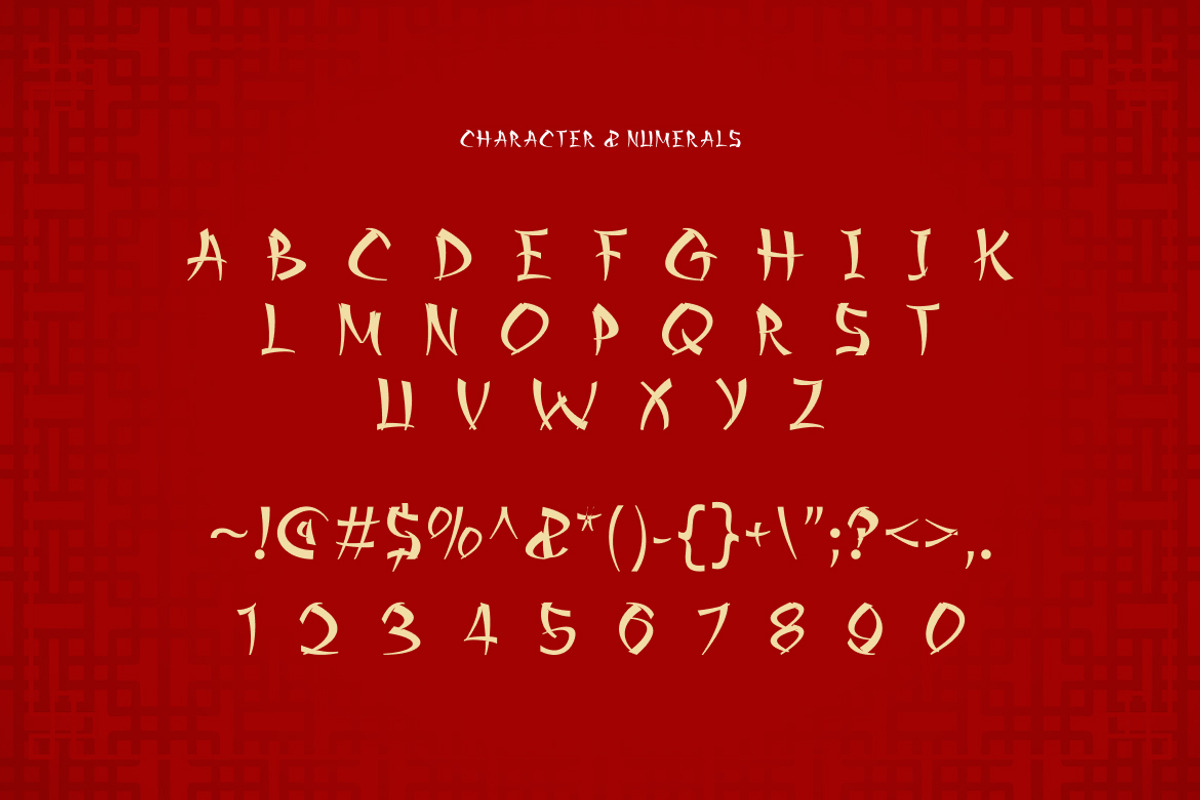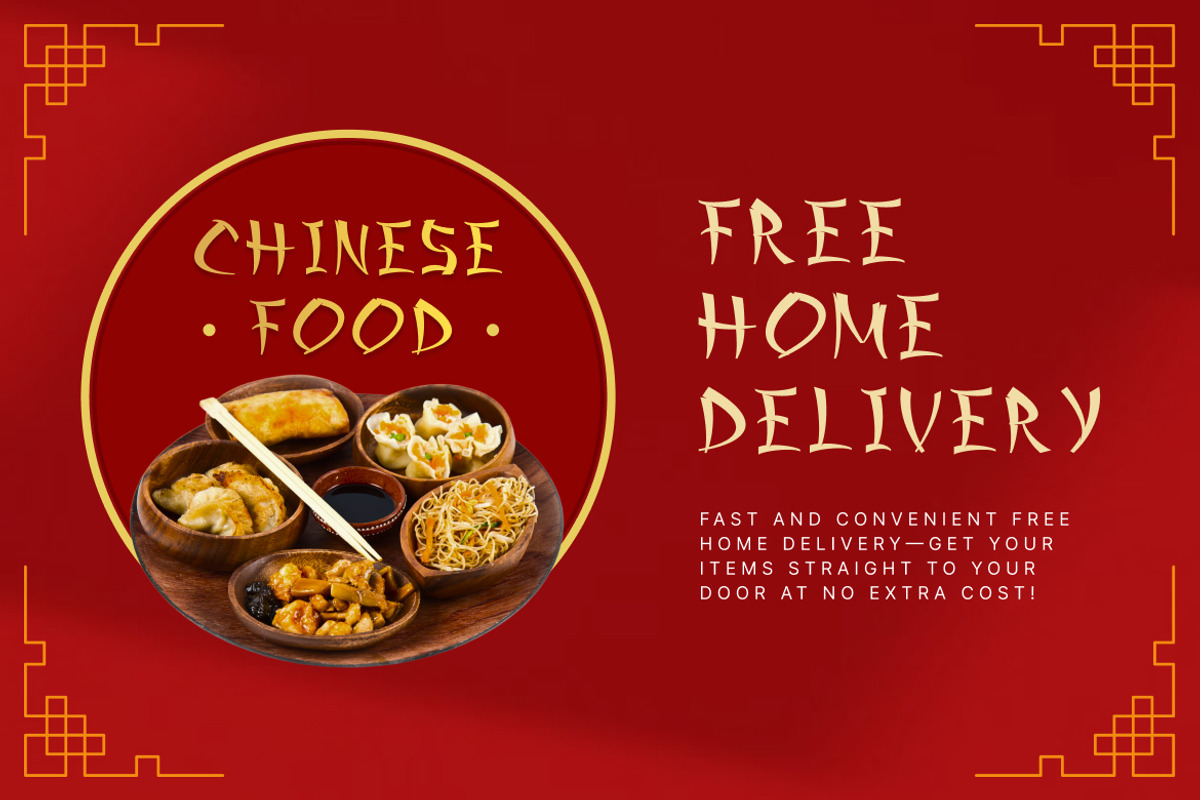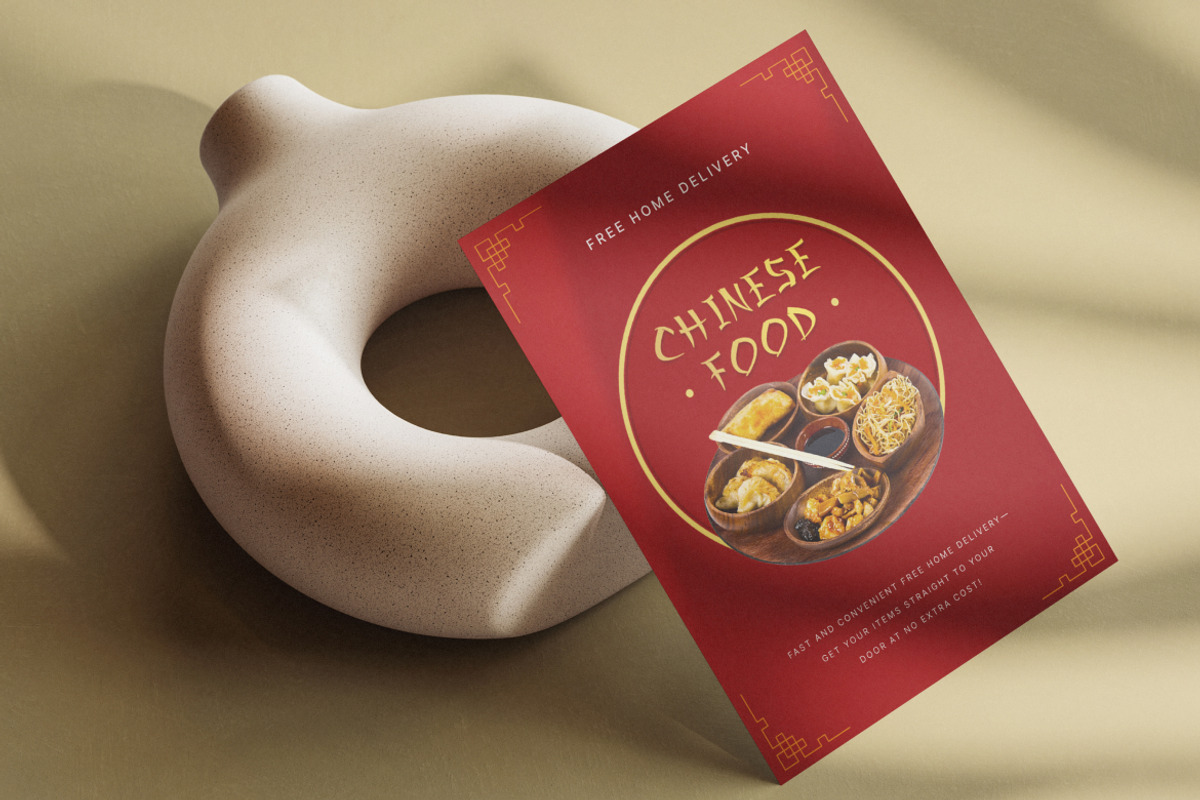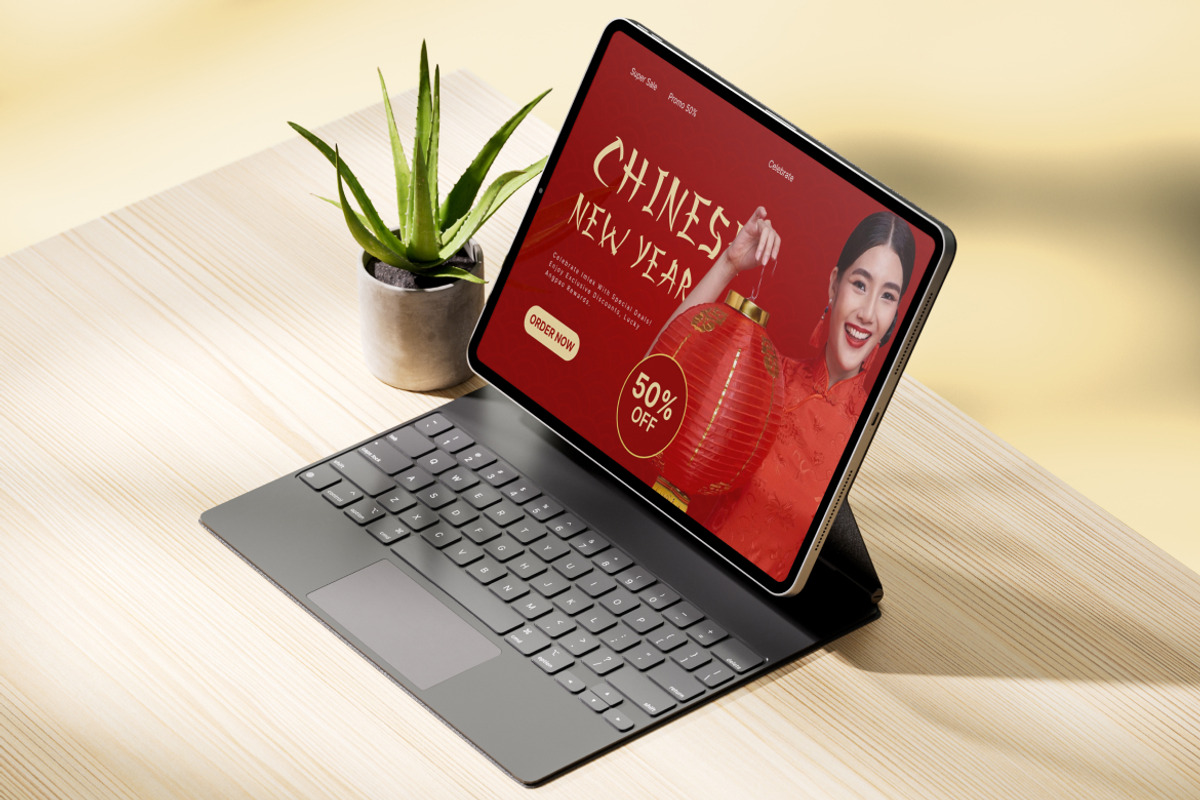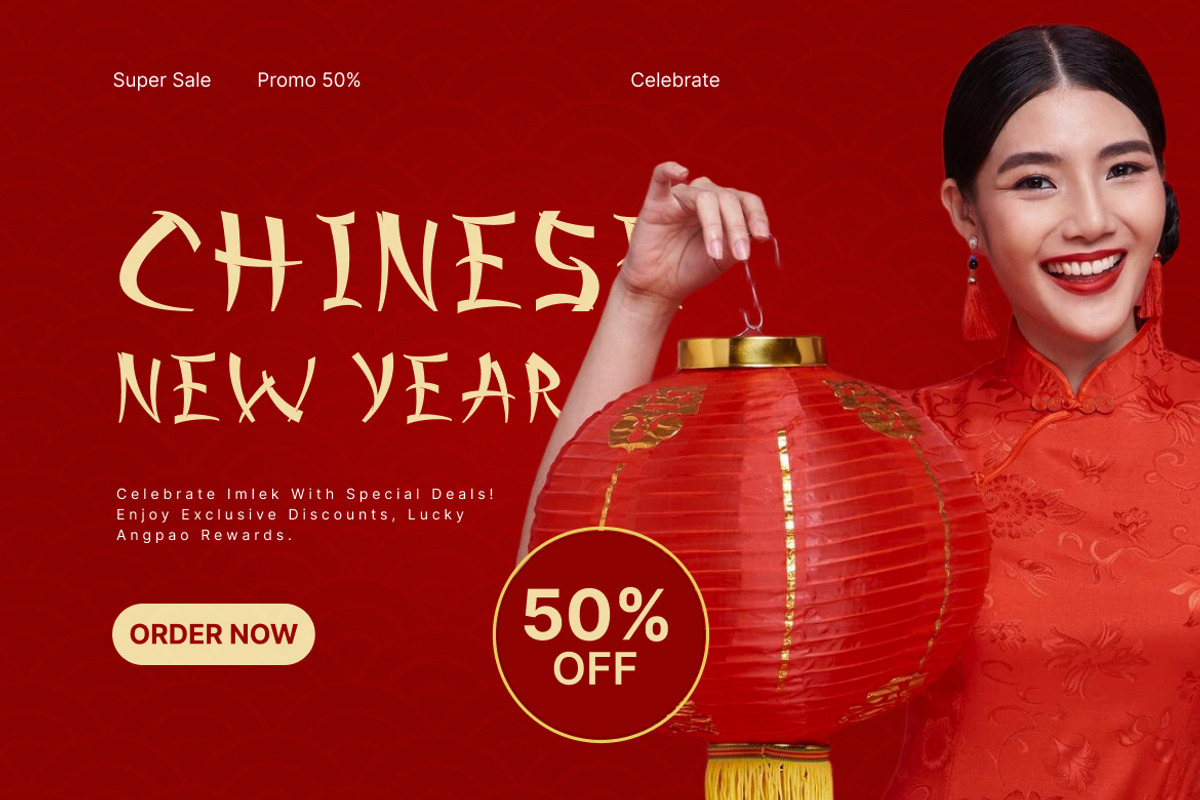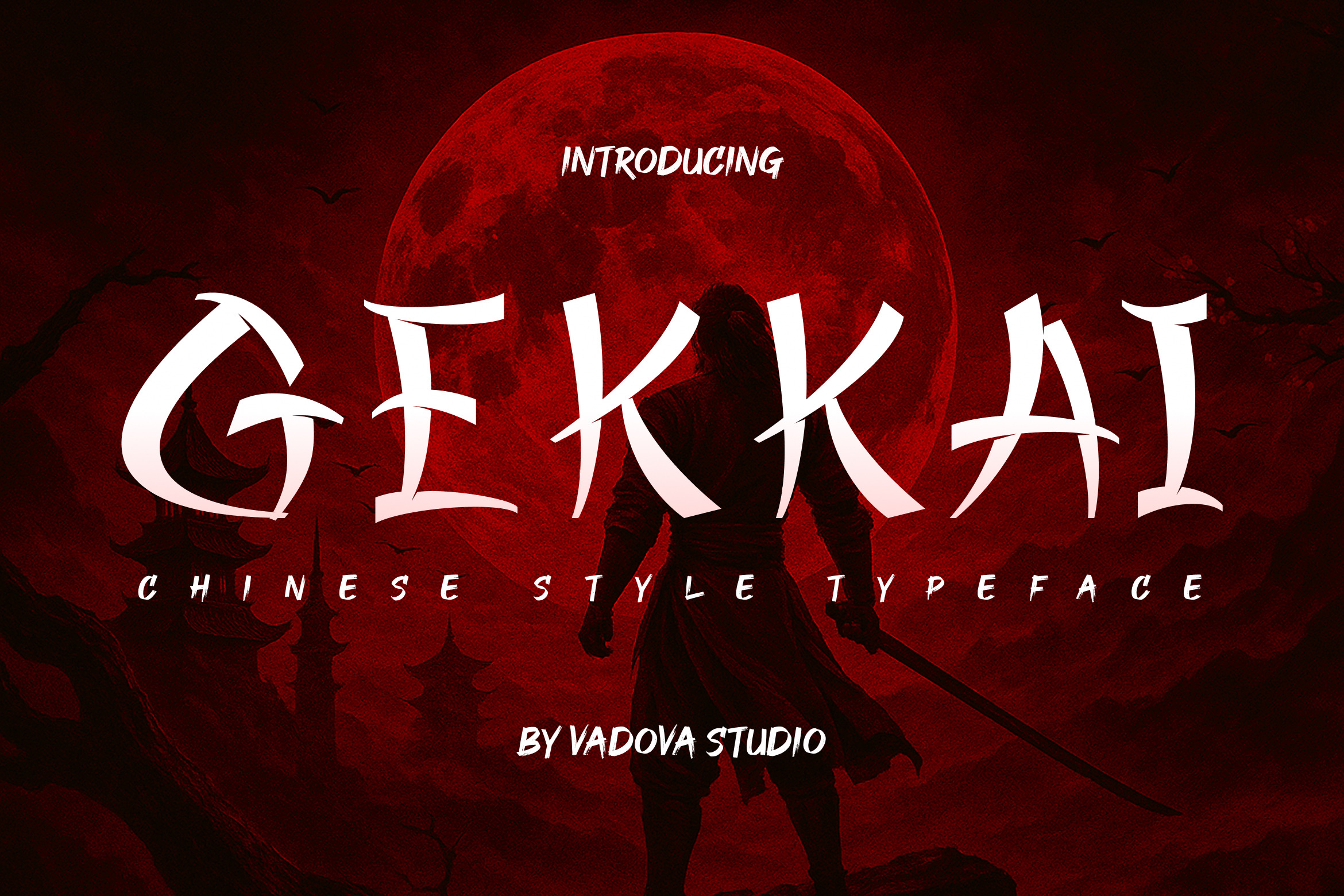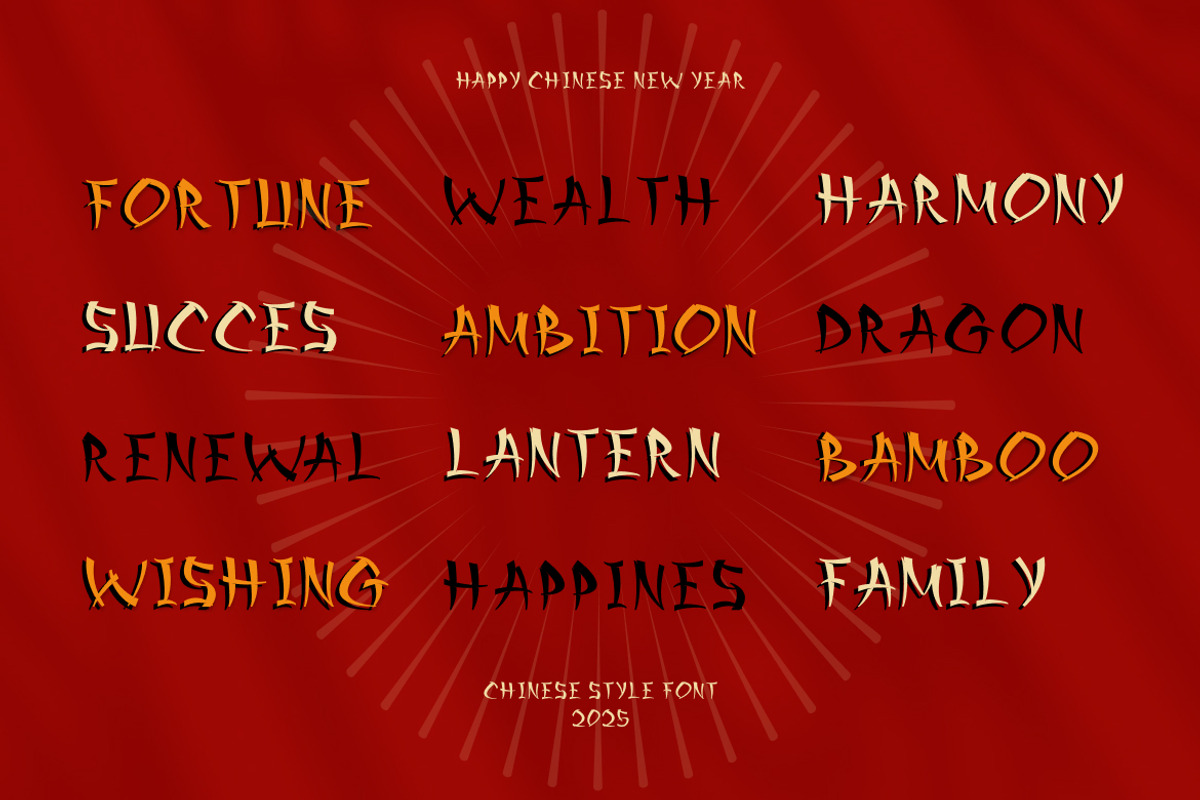
Gekkai Chinese Style Typeface Font
Gekkai is a bold Chinese-style display typeface inspired by traditional brush calligraphy and East Asian visual culture. Its sharp strokes, dynamic curves, and handcrafted letterforms capture the expressive energy of oriental calligraphy while maintaining strong readability for modern design. Designed to create striking visual impact, Gekkai blends artistic brush aesthetics with contemporary display typography.
Gekkai is perfect for projects that require a strong oriental visual identity. Its expressive strokes and distinctive shapes make it ideal for Chinese restaurant branding, Asian food packaging, cultural festival posters, gaming titles, movie posters, martial arts themes, and creative display typography that needs dramatic impact.
- Chinese calligraphy–inspired letterforms with expressive brush-like strokes
- Sharp angled terminals reflecting traditional East Asian ink writing
- Dynamic curves and tapered cuts that create strong visual movement
- Distinctive handcrafted character shapes for bold cultural character
- Designed for impactful display typography and striking headline layouts
- Asian-inspired branding and cultural identity design
- Chinese restaurant menus, food packaging, and culinary branding
- Poster designs, movie titles, and martial arts themed graphics
- Festival promotions and cultural event materials
- Creative logos and display typography seeking a bold oriental character
Bring powerful oriental character to your design with Gekkai